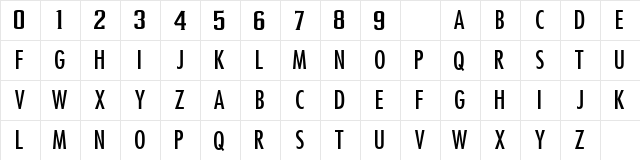
NFL Jaguars Regular Font Preview
NFL Jaguars Regular
Design Context for NFL Jaguars Typeface
NFL Jaguars offers clean, dependable letterforms without strong stylistic allegiance, making it a practical choice for designers who need flexibility.